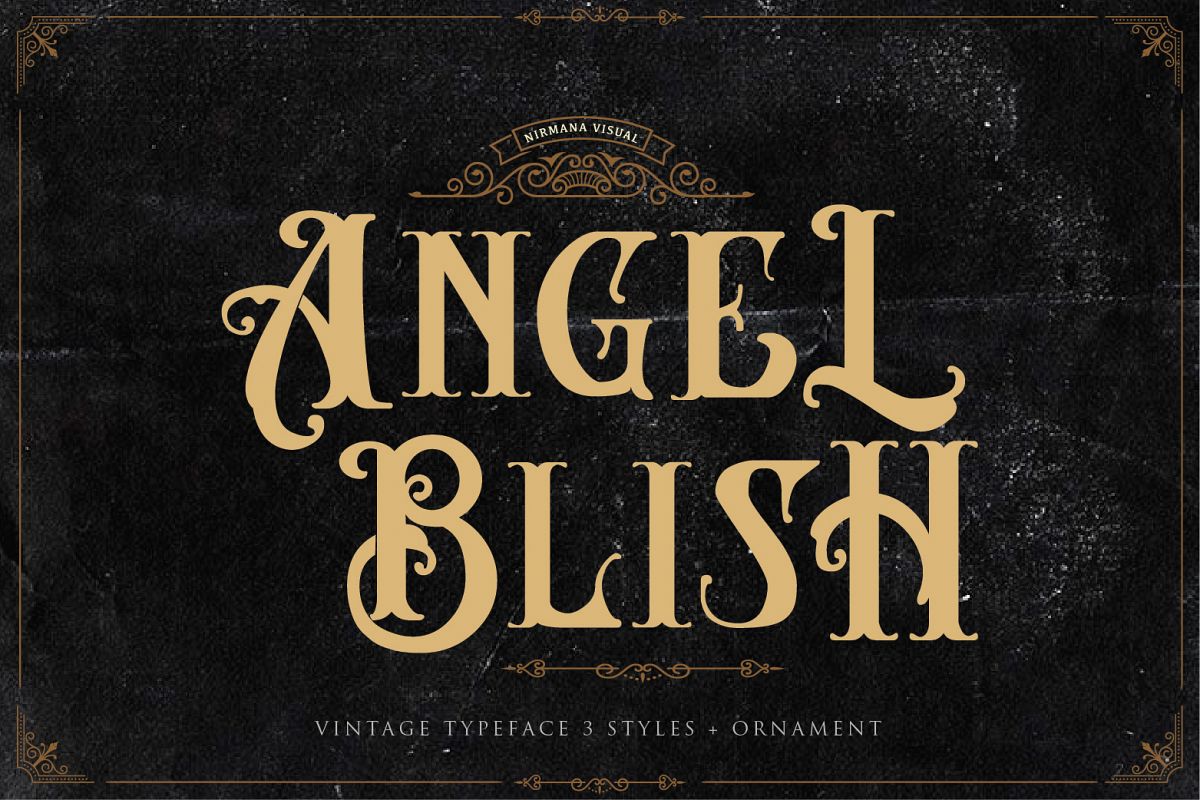
Angel Blish
a Classy, Contemporary inspired by Victorian Era.
Angel Blish offers beautiful typographic harmony for a diversity of design projects, including logos & branding, social media posts, advertisements & product designs.